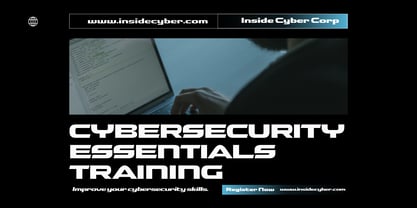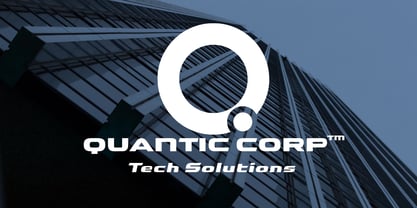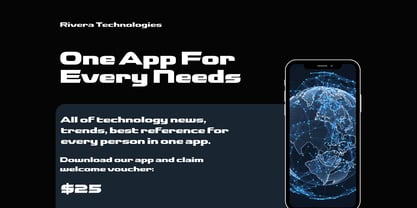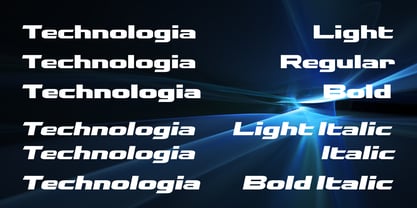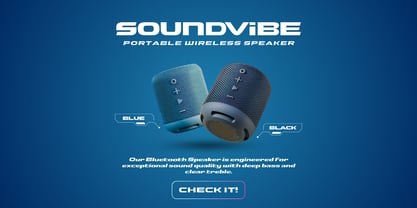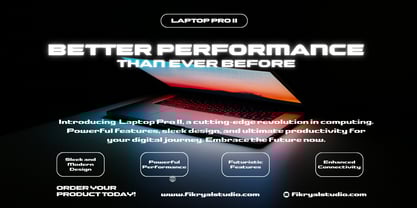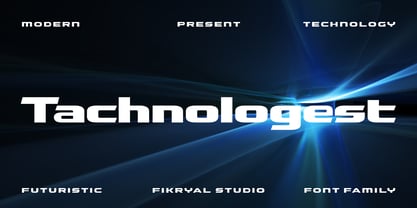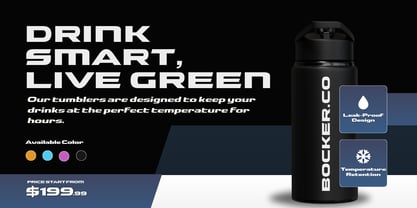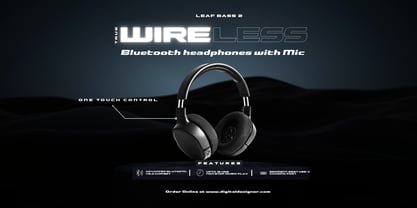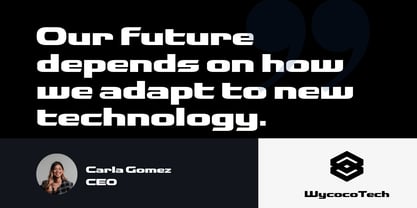
Tachnologest
Tachnologest – Modern Tech Font is a futuristic sans serif display typeface designed to deliver a sleek, precise, and cutting-edge look to any project. With its clean lines, geometric shapes, and modern minimalistic style, this font is perfect for brands and creatives who want to showcase a high-tech, professional image.
This font family comes with 6 versatile styles:
• Light
• Light Italic
• Regular
• Italic
• Bold
• Bold Italic
Each style is crafted to work harmoniously together, giving you the flexibility to mix and match for both print and digital projects. Tachnologest is ideal for technology branding, startup logos, sci-fi posters, app interfaces, corporate presentations, and magazine headlines.
Perfect for:
• Logo & Branding Design
• UI/UX and App Interfaces
• Futuristic Posters & Flyers
• Presentation Headlines & Pitch Decks
• Sci-Fi Book Covers
• Motion Graphics & Titles
With italic and bold variations, Tachnologest offers creative freedom for a wide range of design aesthetics — from minimalist layouts to bold, dynamic compositions.